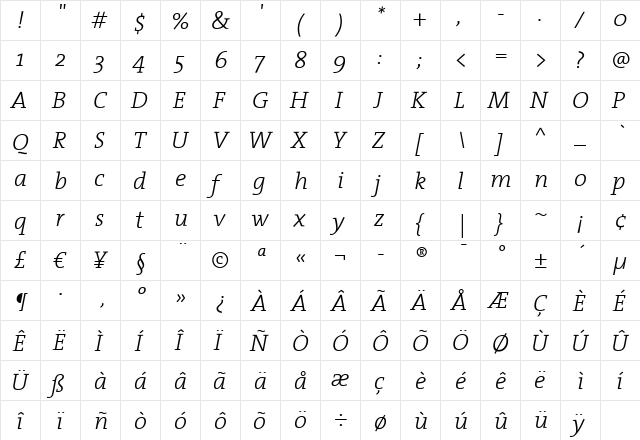
TheSerif Light Italic Font Preview
| Style | Light Italic |
| Foundry | Copr. Luc as de Groot |
Design Context for TheSerif Typeface
TheSerif carries the refined structure of traditional serif typography, with bracketed terminals and considered proportions that communicate credibility and craft. Its italic angle brings a sense of urgency and motion to the letterforms. Its slender proportions lend an understated elegance to any composition.